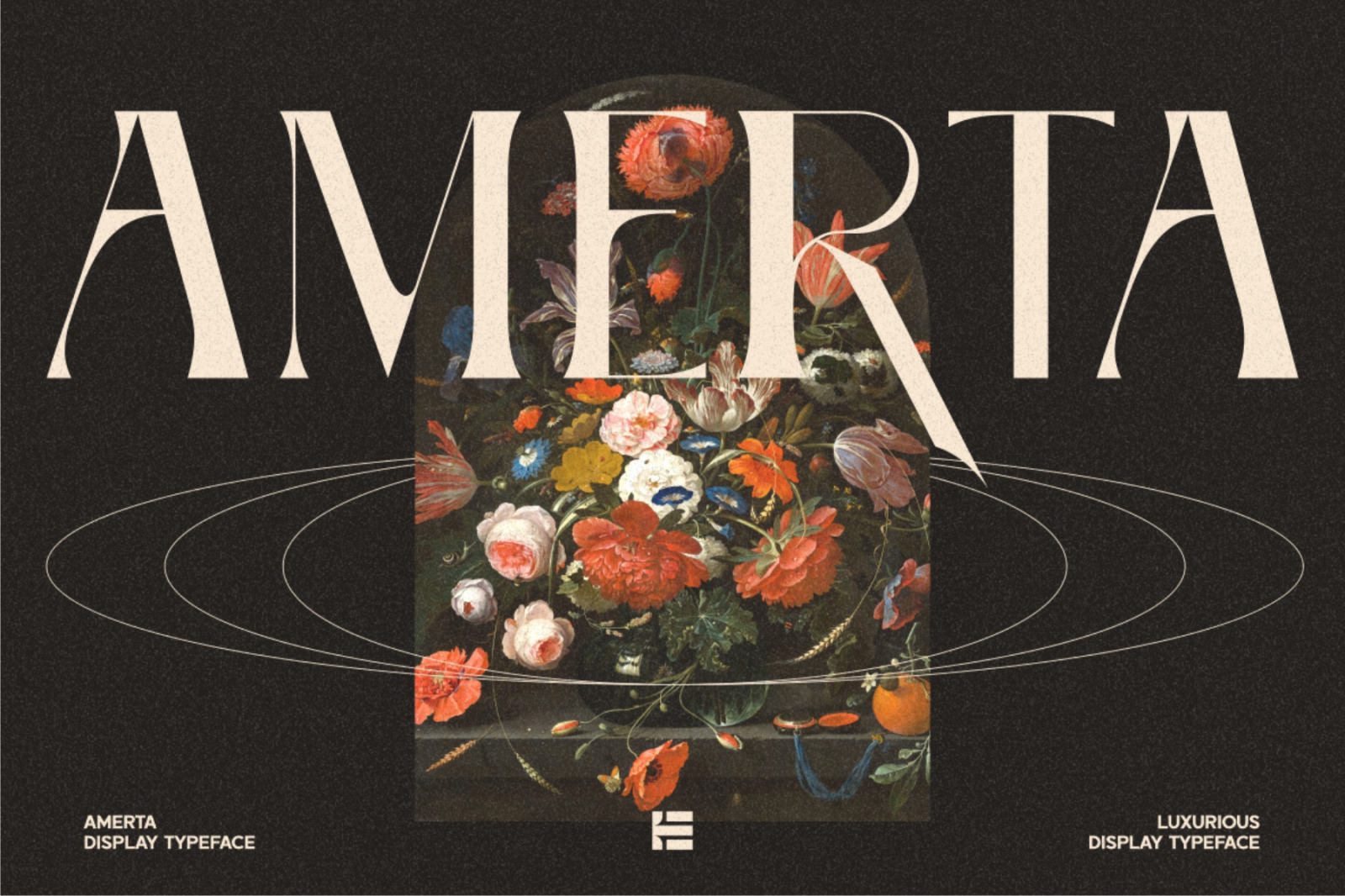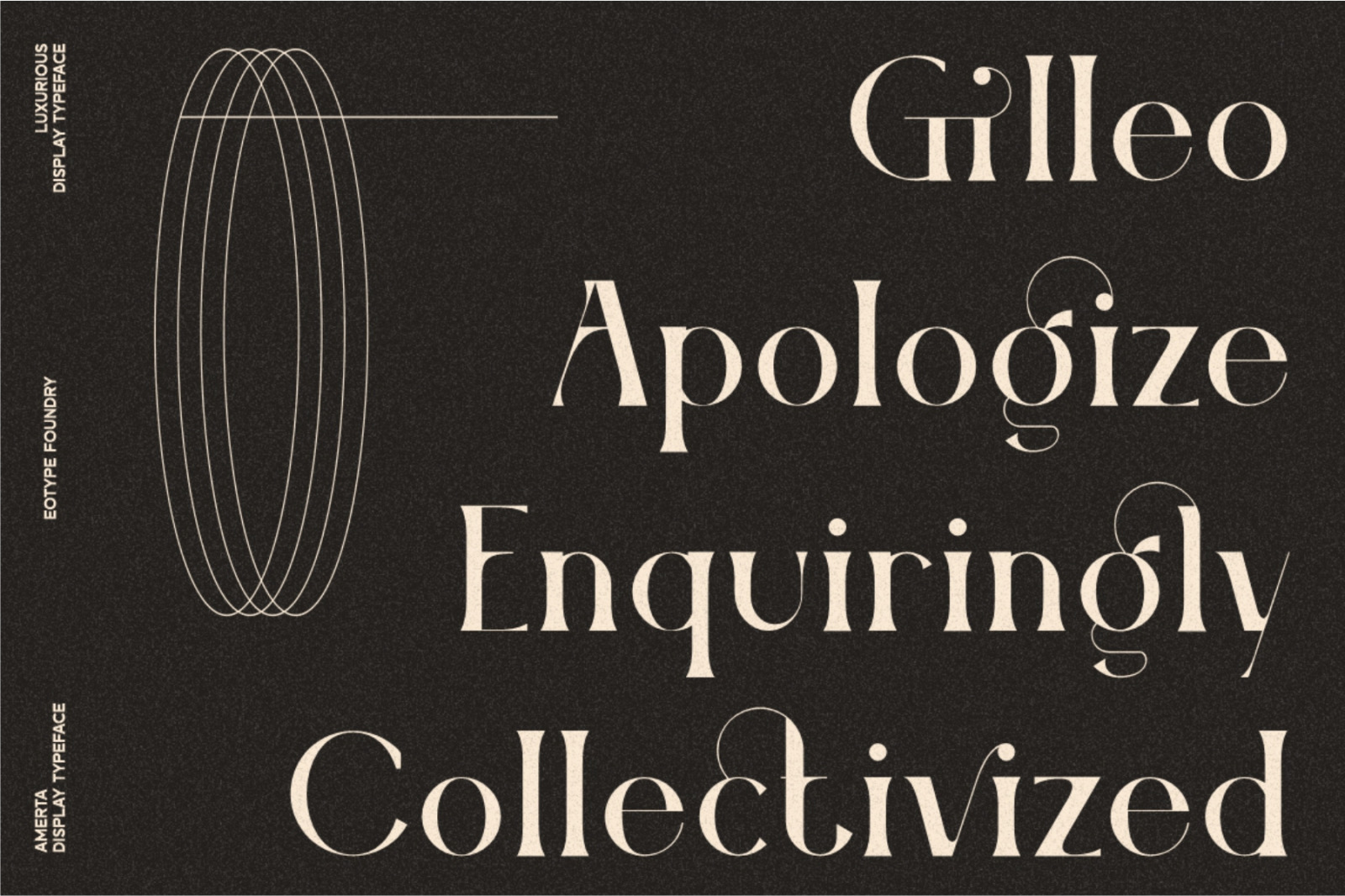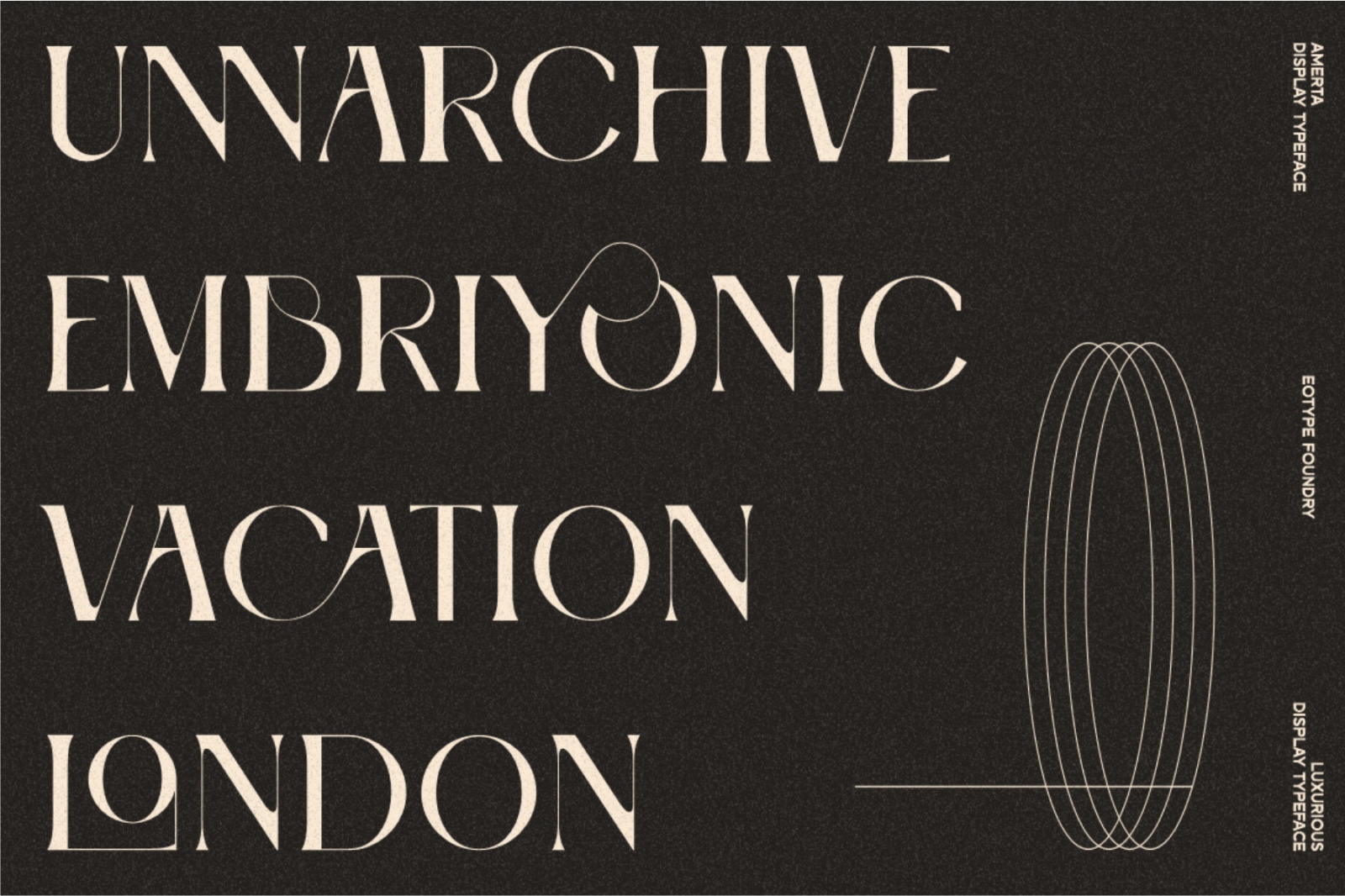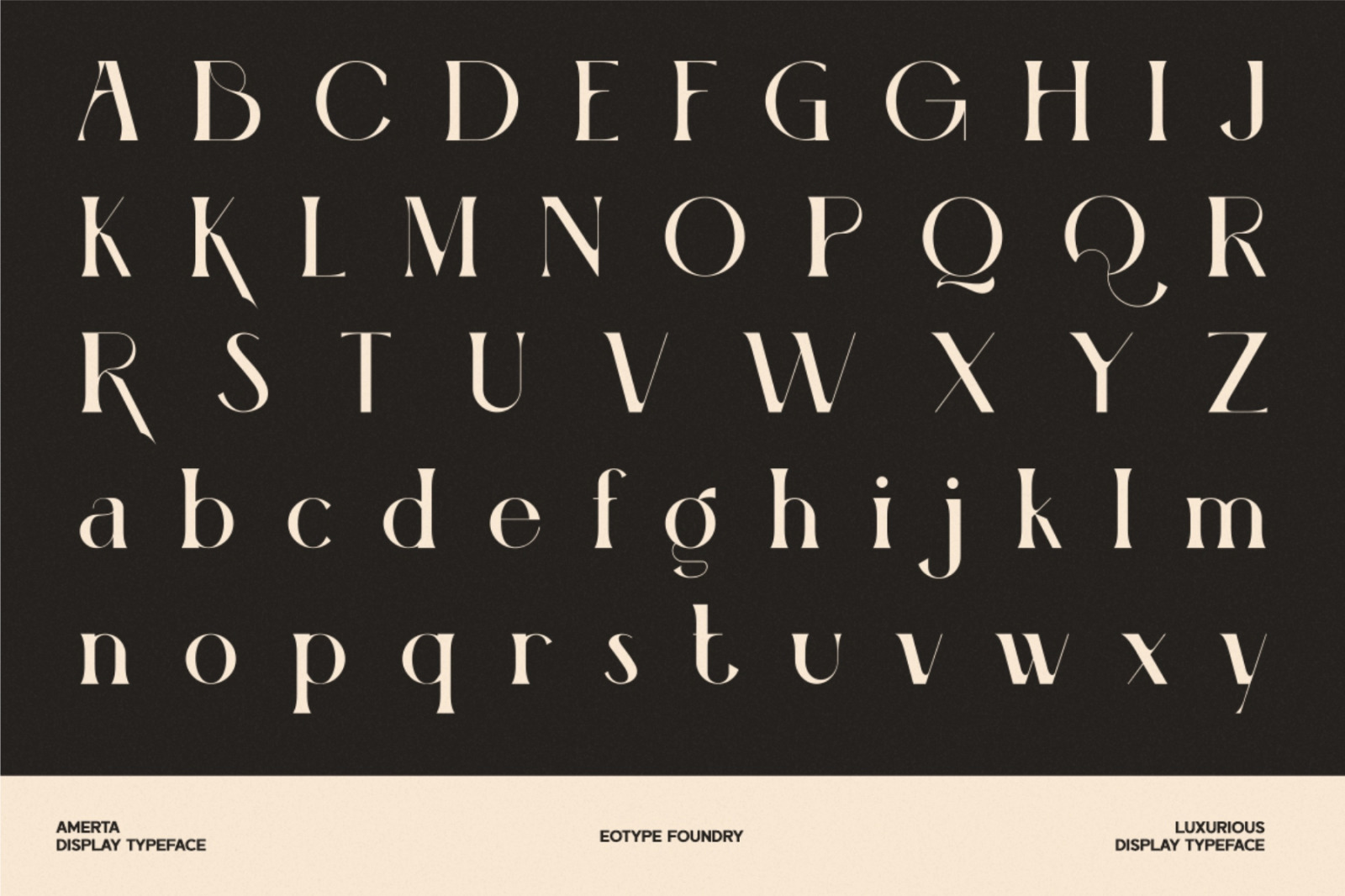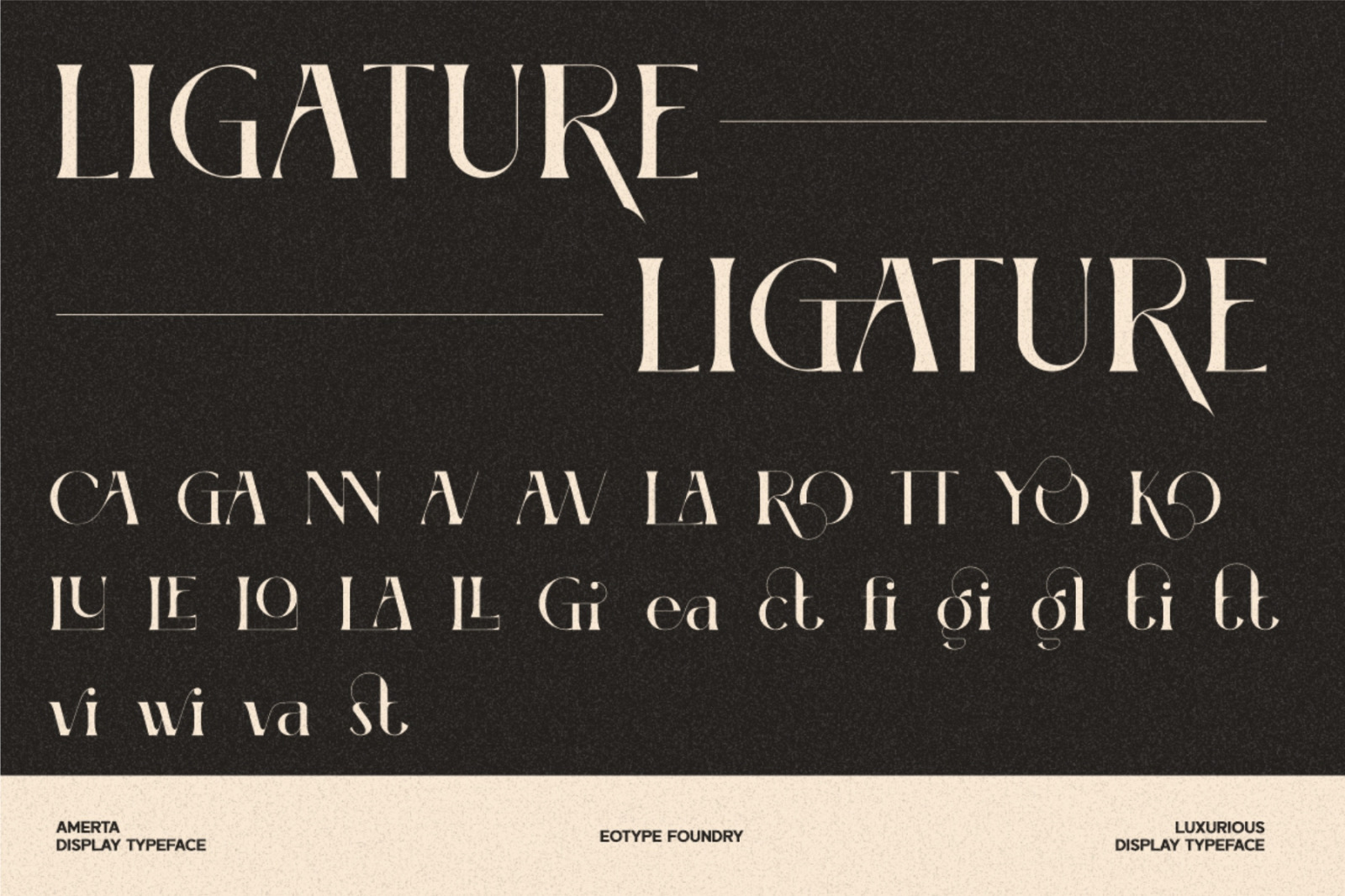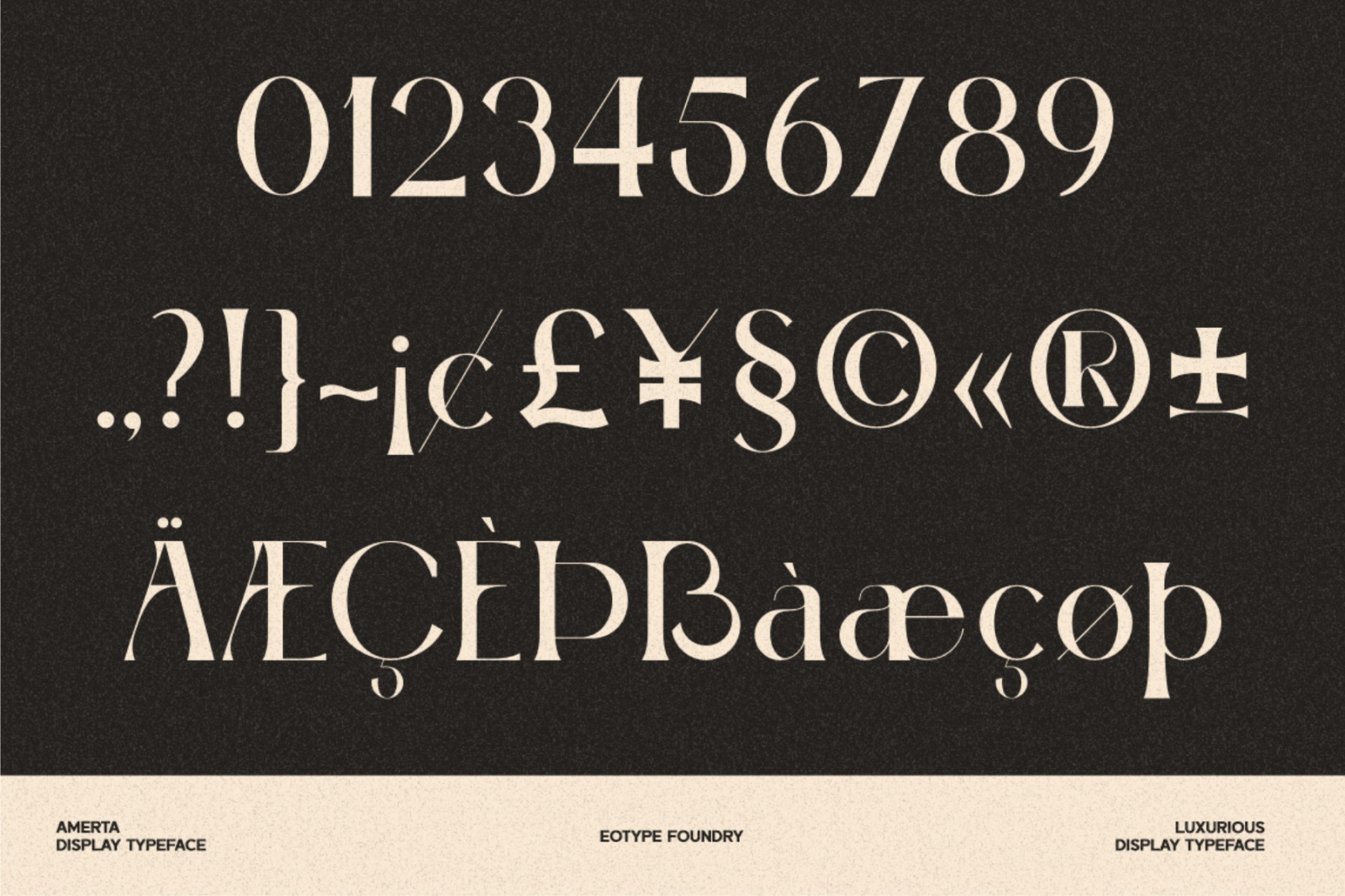
Amerta Font
Amerta is a versatile, classic and unique serif font. Designed by Eotype Studio, It has a unique style with stylistic, alternates, ligatures and supports multilingual languages.
Create unique & beautiful logotype, use it as an elegant solution for your next magazine layout, or choose Amerta for any graphics that require a bold look with a elegant flair.